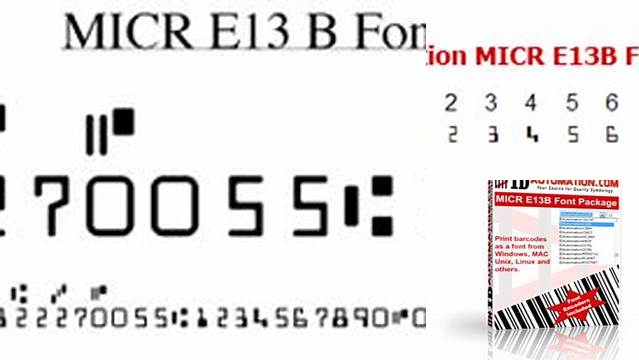
Free MICR E-13B Font Download & Usage Guide
MICR E-13B Font: Your Guide to Free Downloads and Usage
Hey there, guys! Ever needed to print those special bank checks or documents and found yourself scratching your head about the MICR E-13B font? Well, you're in the right place! This article is your go-to guide for everything related to the MICR E-13B font, including how to get it for free and use it like a pro. We'll dive into what this font is, why it's so important, where you can download it, and how to install and use it. So, let's get started!
Understanding the MICR E-13B Font
So, what exactly is the MICR E-13B font? MICR stands for Magnetic Ink Character Recognition. The E-13B font is a special font used primarily on checks and other financial documents. The characters are printed using magnetic ink, which allows machines to read and process the information quickly and accurately. Think of it as the secret language of banking! This font uses a specific set of 14 characters: the digits 0 through 9 and four special symbols (Transit symbol, Amount symbol, On-Us symbol, and Dash symbol). Each character has a unique shape designed for optimal recognition by MICR readers. This technology is essential for automated check processing, helping banks and other financial institutions to handle a massive volume of transactions with speed and efficiency. The precise design of the characters and the use of magnetic ink ensure that even if the check is damaged or smudged, the information can still be read reliably. Without the MICR E-13B font, the world of check processing would be a slow, manual nightmare. Can you imagine manually entering every check? No thanks!
The font's unique design is key to its functionality. Each character has a specific shape and size to ensure accurate recognition by magnetic ink readers. The magnetic ink itself plays a crucial role, as it allows the characters to be read even if they are partially obscured or damaged. This is a major advantage over standard printed fonts, which can be difficult or impossible to read if the document is not in perfect condition. The use of magnetic ink also makes it difficult to tamper with the characters, adding an extra layer of security to financial documents. The MICR E-13B font is not just a font; it is a security measure. The technology behind the font has been around for decades, and it remains a standard in the financial industry. Even with the rise of electronic payments, checks are still a major part of the financial landscape, and the MICR E-13B font remains indispensable. The font's reliability and security make it the preferred choice for encoding critical information on checks and other financial instruments. The standardized nature of the font also ensures that checks can be processed seamlessly across different banks and financial institutions. This interoperability is essential for the smooth functioning of the financial system, allowing for efficient transfer of funds and secure transactions. So, next time you see those funny-looking numbers at the bottom of a check, remember the MICR E-13B font – the unsung hero of modern banking!
Using the MICR E-13B Font in Your Documents
So, you've got the font installed. Great! Now, how do you use the MICR E-13B font in your documents? The process is much like using any other font. Open your word processing or design software and select the text box or area where you want to use the font. In the font selection menu, search for "MICR E-13B" or the name of the font you downloaded. Select the font, and your text should now appear in the MICR E-13B font. You'll typically want to use the font for the numbers and special symbols at the bottom of your check or financial documents. Be sure to position the text correctly according to the specifications for check printing. These specifications are usually provided by your bank or check printing service. You might also need to adjust the size and spacing of the characters to meet these specifications. Check printing often requires precise alignment to ensure that the characters are read accurately by MICR readers. Some software programs offer templates or features specifically designed for check printing. These can simplify the process and ensure that your documents meet the required standards. Always double-check your work to make sure that the characters are clear and legible. Printing with the MICR E-13B font correctly is key to ensuring that your checks can be processed without any issues. The correct usage of the font involves selecting the font in your software, correctly formatting and positioning the text, and adhering to the specifications for check printing, which are often provided by banks or check printing services. For best results, always review the documentation related to check printing to ensure that the characters are clear, the spacing is correct, and the text is properly aligned. Furthermore, consider using specialized software or templates designed for check printing to streamline the process. These tools often come with features that help ensure the accuracy of your documents and eliminate the risk of formatting errors.
Best Practices and Considerations for Using MICR E-13B
Here are some best practices and things to keep in mind when using the MICR E-13B font:
- Printing: Use a laser printer with a high-quality print resolution for the best results. Inkjet printers may not be suitable for printing with magnetic ink.
- Check Stock: Use check stock specifically designed for MICR printing. This paper is formulated to work with magnetic ink and helps ensure accurate character recognition.
This guide provides a comprehensive understanding of the MICR E-13B font and its application in the financial sector. By downloading and using the font safely and effectively, users can streamline financial document creation. The information is presented clearly. Whether you're a business owner, accountant, or just someone who needs to print a check, understanding the MICR E-13B font is essential. This article has provided a clear and concise guide. You should be ready to get started printing your documents with confidence. Always remember that safety and compliance with industry standards are essential. Happy printing!